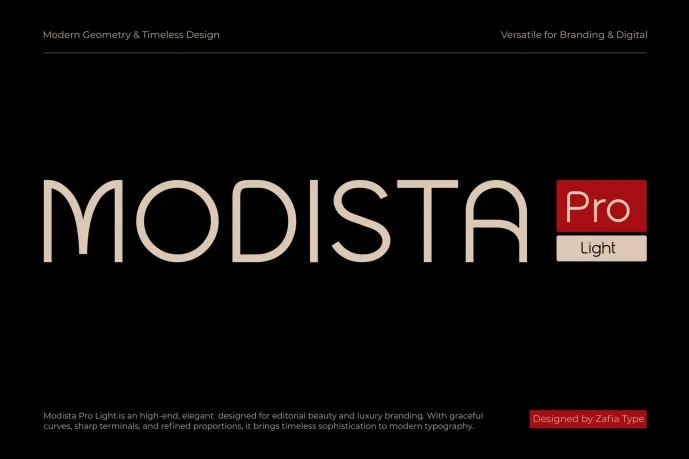
Modista Pro Light Font
Modista Pro Light is a high-end, elegant typeface made for editorial beauty and luxury branding. Its graceful curves, sharp terminals, and refined proportions add a timeless sophistication to modern typography.
Modista Pro Light Sans Serif Font